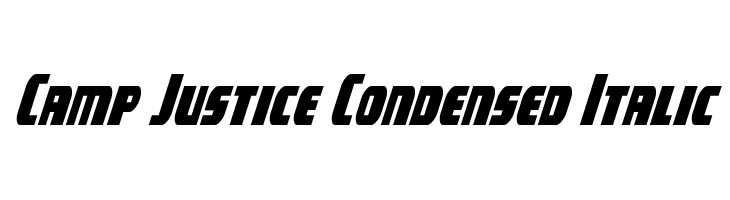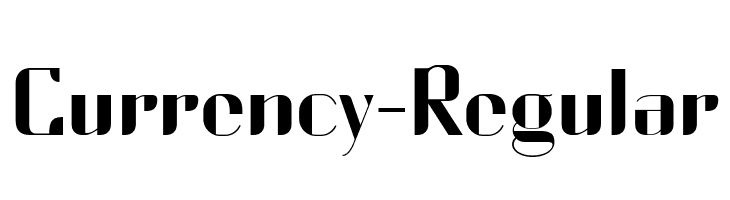
A bold, geometric font with a futuristic, industrial design.
A modern, geometric font with clean lines and a structured appearance.
A bold, geometric font with blocky, angular letterforms and a modern, assertive style.
An elegant, decorative script font with intricate swirls and flourishes.
A modern, condensed semi-bold font with geometric structure and high legibility.
A classic Blackletter font with intricate, ornate letterforms and a Gothic aesthetic.
A bold, playful script font with a handwritten, artistic flair.
An ornate, medieval-style font with intricate flourishes.
Superhero silhouette font with each glyph as a character pose.
A playful, hand-drawn font with rounded edges and a casual style.